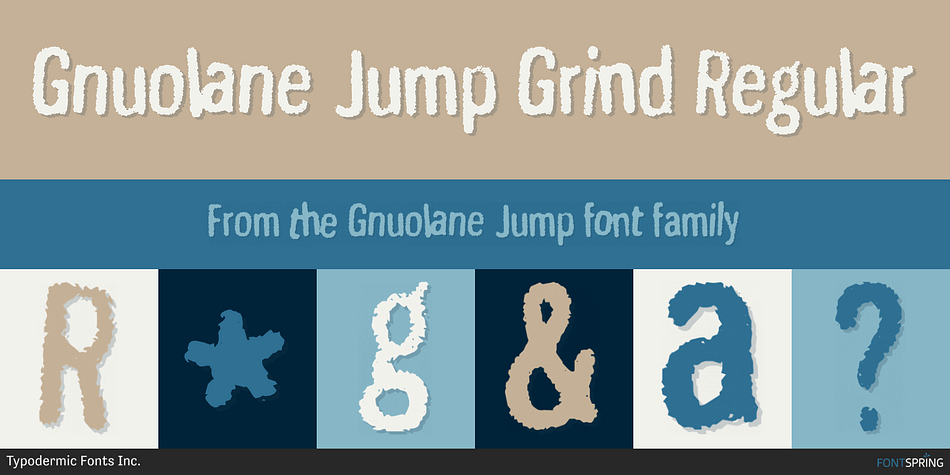
Gnuolane Jump Grind Regular
Gnuolane Jump is a grunge, kids and novelty font family. This typeface has four styles and was published by Typodermic Fonts Inc.
Meet Gnuolane Jump, the lighthearted typeface that bounces with personality. Inspired by early twentieth-century grotesque designs, Gnuolane Jump is a typeface with a playful 1960s twist. Its superelliptical appearance gives it a unique charm that sets it apart from other headline fonts.
Gnuolane Jump features old-style numerals, adding to its vintage appeal. But what really makes this font stand out is its OpenType ligatures. With tailored combos that automatically substitute common character sequences, Gnuolane Jump creates a bouncing effect that brings your text to life.
If you’re looking for a more subdued style, be sure to check out Gnuolane and Gnuolane Stencil. But if you want to inject some fun and personality into your headlines, give Gnuolane Jump a try. Its lively spirit and unique character will add an extra touch of charm to your design.